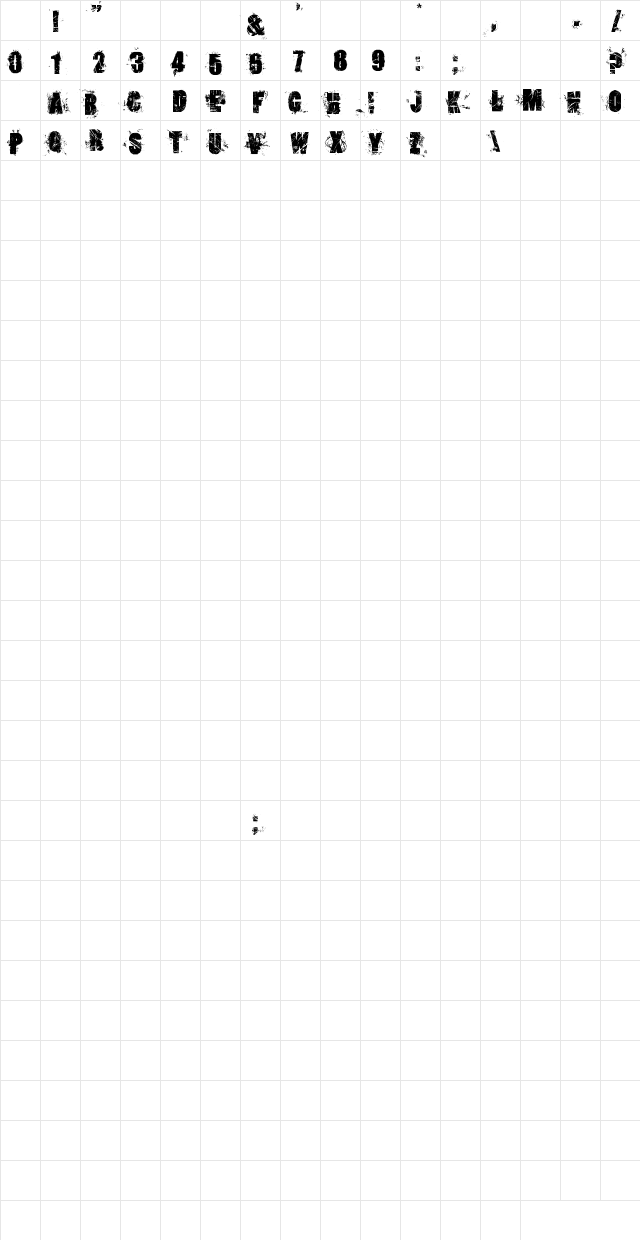
Complete loserboi grunge Regular glyph index. Displaying only characters natively supported by loserboi grunge Regular font.
loserboi grunge embraces imperfection - its rough, textured character adds raw authenticity to designs that want to feel lived-in and unconventional.
Pro Tip: Use loserboi grunge at larger sizes where the texture and irregularity of each letterform can be clearly seen - it loses its character at small sizes.